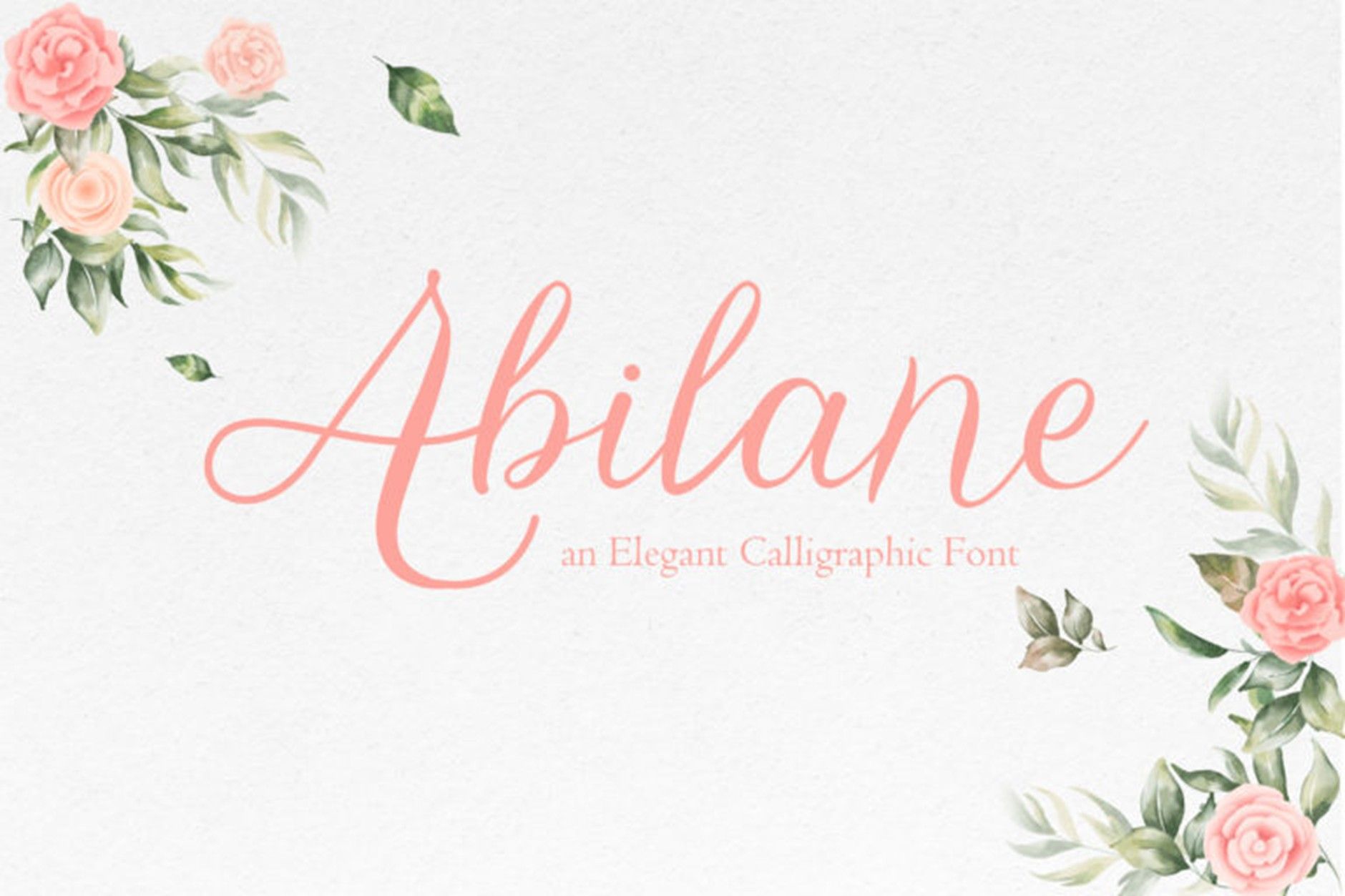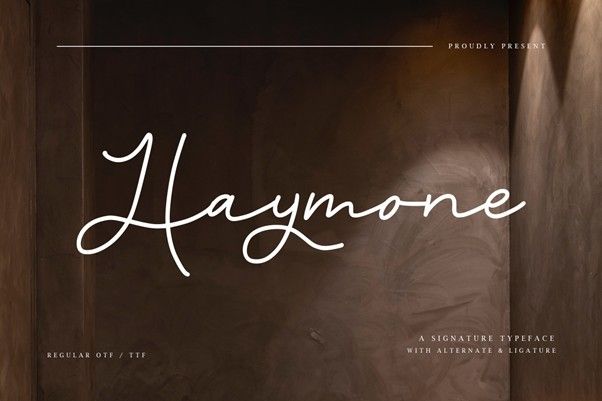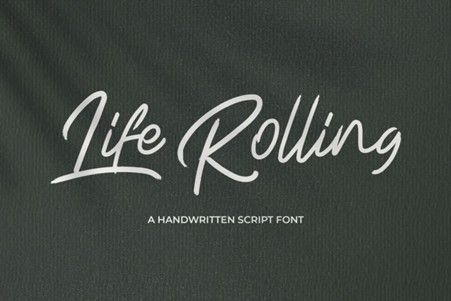
30 Grief Quotes to Express Your Feelings
According to Jill S. Cohen, a grief counselor, grief quotes can be a powerful way to provide comfort, inspiration, and reassurance. These kinds of quotes also help us find gentle language when our own hearts feel too heavy to speak.
For instance, what to say to family when someone is dying quotes can serve as a meaningful guide, offering clarity on how to provide emotional support without feeling unsure about what to say.
Quotes About Grief
Grief happens during death, losing loved ones, and the healing process. Dealing with grief is a deeply personal journey, but the words of others who have walked a similar path can often provide solace and perspective. Here are some powerful quotes that capture the pain of loss, the enduring strength of love, and the gradual process of healing.
Quotes About Death and Grief
- Death is something that will surely happen. It doesn’t wait for us to be ready before taking a life; it comes to anyone whose time has ended.
- When someone dies, their presence doesn’t simply disappear. They continue to live in the hearts of those who remember them.
- Grief doesn’t fade easily. Sometimes, we just have to learn how to live with it.
- Death may separate us from our loved ones in body and soul, but grief keeps their memory alive within us.
- Maybe on that day, both of us died in our own way. The only difference is that I kept breathing, and you didn’t.
- Sometimes the hardest part of death isn’t the moment they leave, but the days after, when we must face life without them by our side.
- Grieve for as long as you need. Grief has no deadline.
- There is no simple way to remove grief from the heart. Each day, we just learn to let go little by little until the grief becomes a quiet companion.
- I hope grief comes to me gently like light rain, rather than pouring down like a storm that overwhelms me.
- They may be officially recorded as gone on a death certificate. But to me, they never truly left. Their traces in this world continue to live in our memories.
Grief Quotes About Losing a Loved One
- Today I lost the colors of my world. The world that once felt bright because of you has turned back into a quiet, empty monochrome.
- Even though you left me first, my love for you will never fade.
- They may have left this world, but I know I can still find them in the cafés, parks, libraries, or other familiar places we once visited together.
- What I fear most about losing someone I love is the moment I start forgetting what their laughter sounded like.
- This grief may be something I can never fully overcome. Losing you is truly beyond what my heart can bear.
- Since losing you, I have always felt lonely and empty, even when a crowd surrounds me.
- When you love someone, be prepared for deep sorrow when they eventually leave.
- The departure of someone precious isn’t felt entirely at once. You slowly feel their presence fade over a long time.
- Nothing in this world comes for free, including love. When we choose to love someone, the price we pay is the grief of losing them someday.
- I miss you so much. Please come to see me tonight in my sleep as a beautiful dream.
Healing Grief Quotes
- Losing someone is truly hard, but those who are still alive must continue living.
- Everything will feel impossible if we never try, and the same goes for the grief that we fear instead of facing.
- Little by little, the pain of losing someone we love will turn into acceptance. It may take a long time, but one day it will happen.
- We don’t need to rush the healing process. Healing is a gentle journey that moves at our own pace.
- Don’t remember the people you love only through tears. Remember them with smiles and a happy heart.
- Healing yourself doesn’t mean forgetting the love that is gone. It means creating space for new love to enter.
- Grief may feel heavy at first, but over time, we grow stronger and carry it more lightly each day.
- Accepting someone’s departure doesn’t mean we’ve forgotten them. It simply means we choose to move forward without letting the past hold us back.
- Even though you’re no longer beside me today, I will always remember you as someone who keeps pushing me to move forward.
- One day, my tears will stop falling when I think of you. Just like the calm after a long storm.
Create a Meaningful Memorial Design with Premium Fonts
You can use the grief quotes above in a memorial design, tribute post, or condolence card. To make the message more heartfelt, combine it with calming and beautiful visuals. Select soft, aesthetic fonts to convey your sincerity. Here are some font options for you to choose from.
1. Dischlay
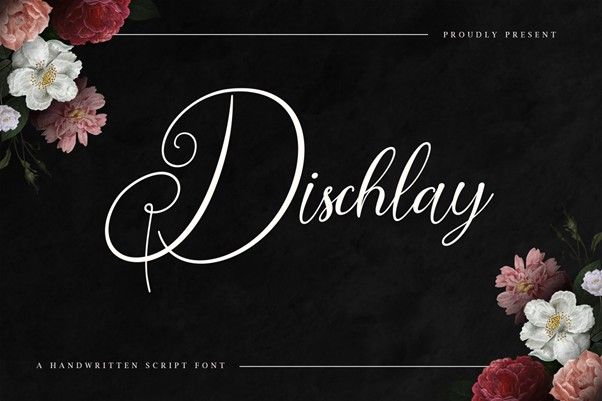
Dishclay is a handwritten script font with elegant swashes featuring a beautiful and luxurious feel. This font works beautifully as a title for condolence cards or as the main typeface for grief quotes.
Ready to Start Writing Your Grief Quotes?
All of the recommended fonts above can help your quote designs feel cleaner, calmer, and more professional. This is because the heartfelt words you’ve prepared will resonate even more deeply when paired with premium, elegant, and gentle typography.